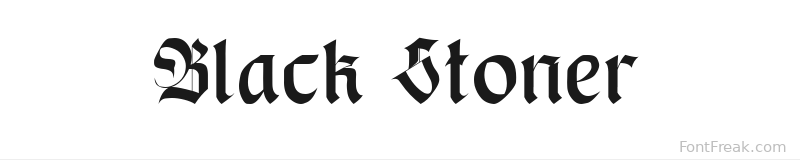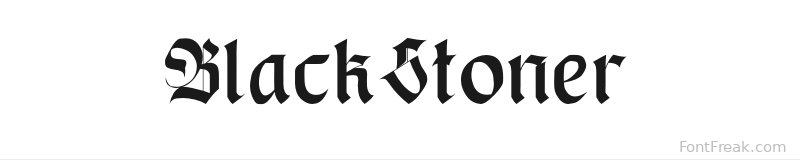
Black Stoner
The Black Stoner font, designed by Kong Font in 2021, is a striking display typeface that captures attention with its bold and edgy aesthetic. This decorative font showcases a unique blend of blackletter influences, characterized by sharp angles and dramatic curves that give it a distinctive personality. The stroke weight is notably heavy, providing a strong visual impact, while the contrast between thick and thin lines adds depth and dimension to the characters. The spacing is well-considered, allowing for legibility even in larger formats, making it an excellent choice for various design applications.
Black Stoner excels in creative settings, making it perfect for use in movie posters, where its bold presence can evoke emotion and drama. It also shines in restaurant menus, providing a memorable branding element that resonates with diners. Additionally, this typeface is ideal for album covers, where its unique style can help convey the essence of the music. Small business owners looking to create striking promotional materials will find Black Stoner particularly appealing for flyers and advertisements that demand attention. Graphic designers and content creators will appreciate the versatility this font offers, allowing for dynamic layouts and striking visuals.